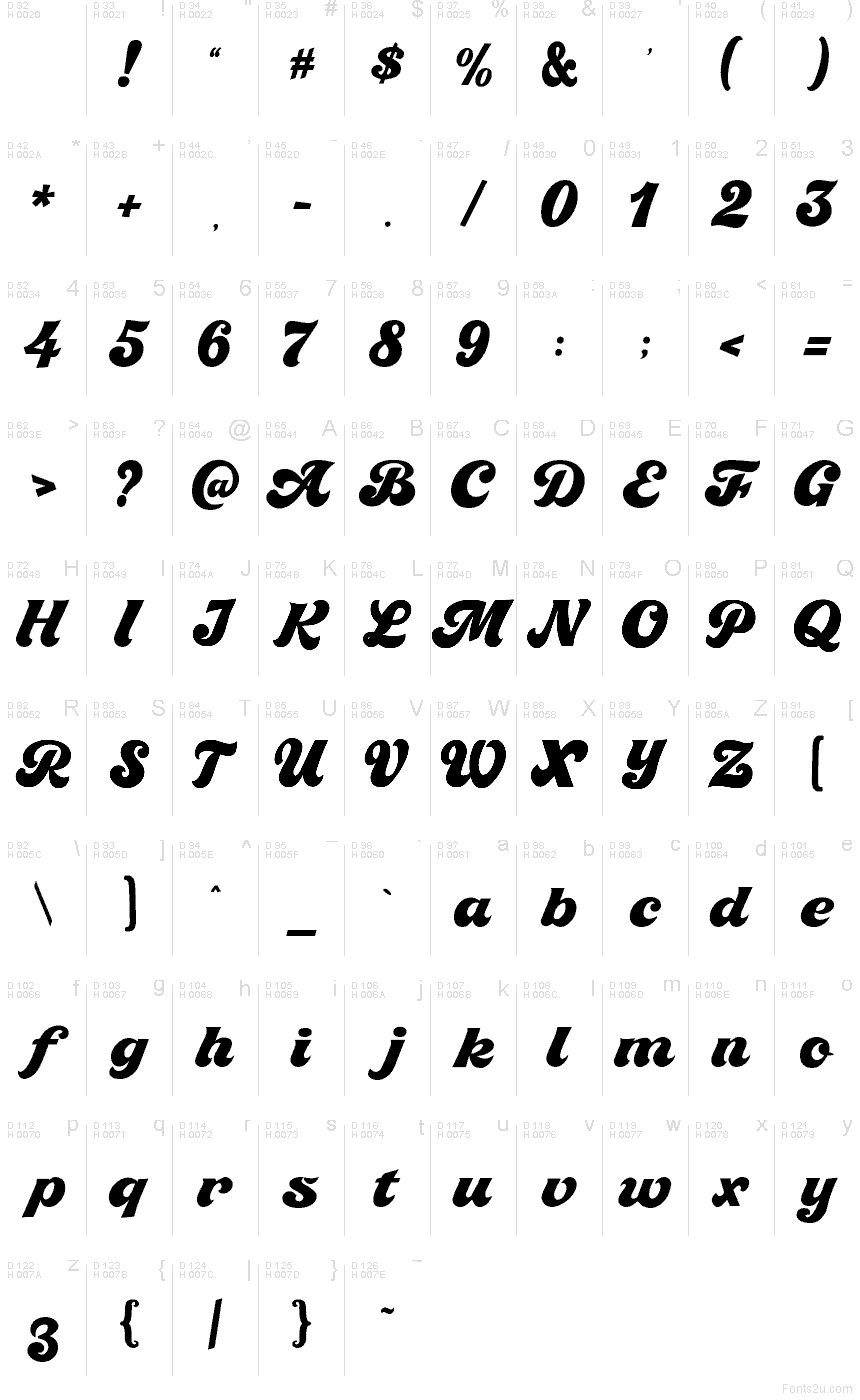
Midnight Angel font by BlackFridayFont FMF is a free brush script typeface with thick, inky strokes and a velvety, hand-painted flow. The letters lock together in confident curves, giving your text a bold, cohesive wordmark feel straight out of the box. It has a moody, late-night energy-romantic but a little dangerous-making even a single word look like a custom logo.
Using Midnight Angel, you can bring swagger to t-shirt graphics, packaging, posters, album covers, social media banners, and bold branding for lifestyle products. This free font shines when used large, where its dense texture and sweeping connections can really breathe. For a balanced look, pair Midnight Angel with a clean, light sans serif for supporting text so its lush script can take center stage.